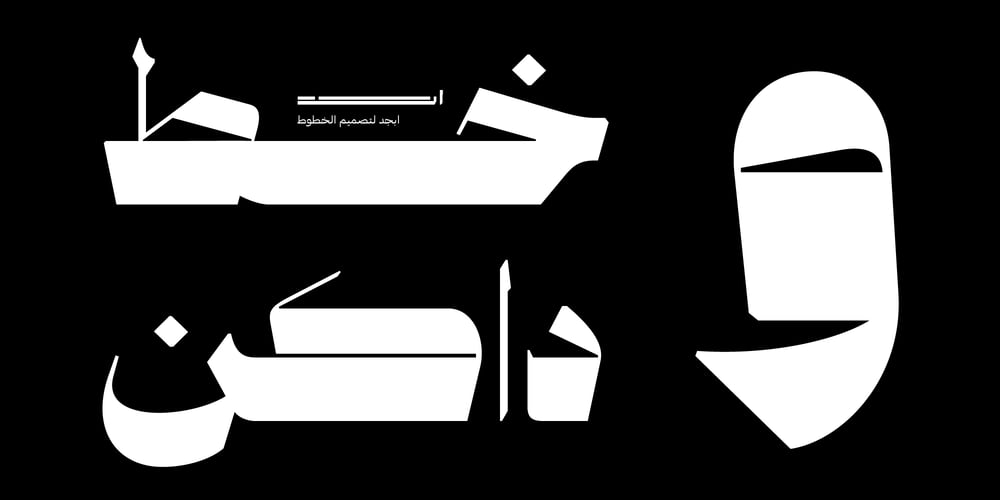
Abjad Daken Font Family was designed by Ali Almasri and published by Abjad. Abjad Daken contains 1 styles and family package options. A modern Mastari Naskh with sharp details and very high contrast, that can be used for branding and poster design.